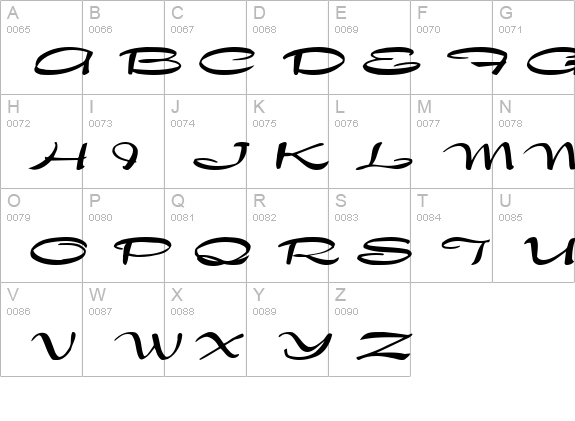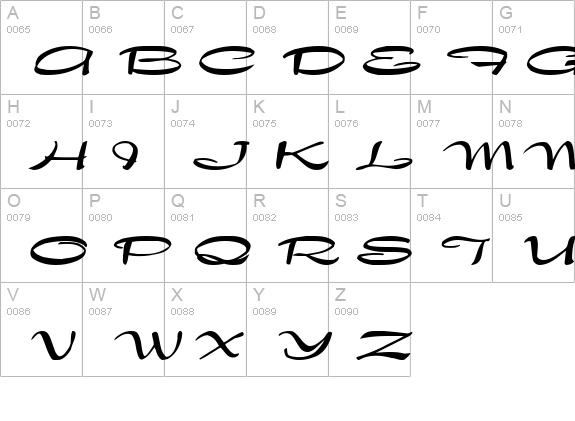
Dragonwyck Bold Italic is a strong, high-contrast, italic variant in the Dragonwyck typeface family \xE2\x80\x94 well suited to headlines, attention-grabbing titles, and strong calls-to-action.
Dragonwyck Bold Italic font is a stunning and sophisticated typeface that exudes elegance and class. With its bold strokes and sleek italics, this font is perfect for adding a touch of modern flair to any design project. The unique combination of classic and contemporary elements make Dragonwyck Bold Italic a versatile choice for both headers and body text. Best of all, Dragonwyck Bold Italic font is available for free download at FontsMarket.com. Whether you're working on a branding project, website design, or any other creative endeavor, this font will bring a sense of style and refinement to your work. Don't miss out on the opportunity to enhance your designs with the timeless beauty of Dragonwyck Bold Italic font, now conveniently accessible for free at FontsMarket.com.